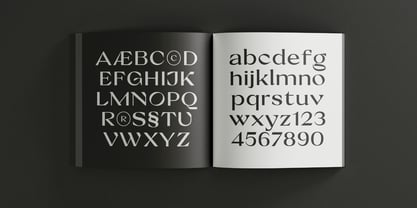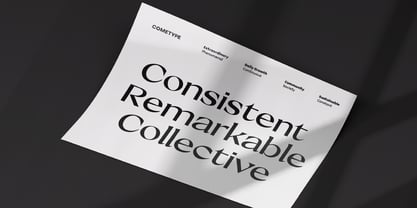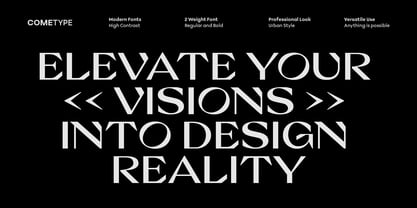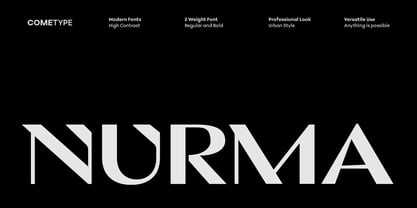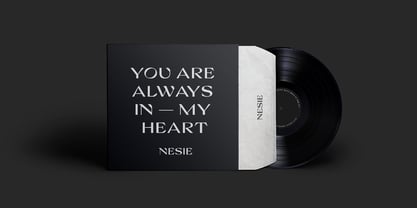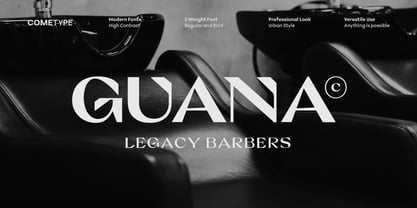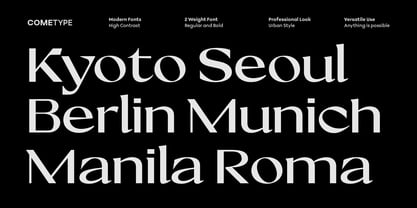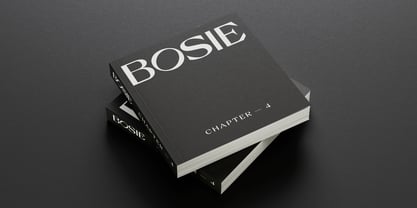
Nurma
by Come Type
The Nurma Font Family was designed by abdul artega and published by Come Type. Nurma contains 2 styles and family package options.
Nurma is a modern and dynamic urban display font, available in 2 weights: Regular and Bold for flexibility in design hierarchy. Providing a trendy and bold feel with bold and confident capital letters, Nurma is perfect for posters, promotional banners, branding, logos, magazine headlines, and social media designs that want to stand out. With multilingual support, this font is ready to amplify your message globally.